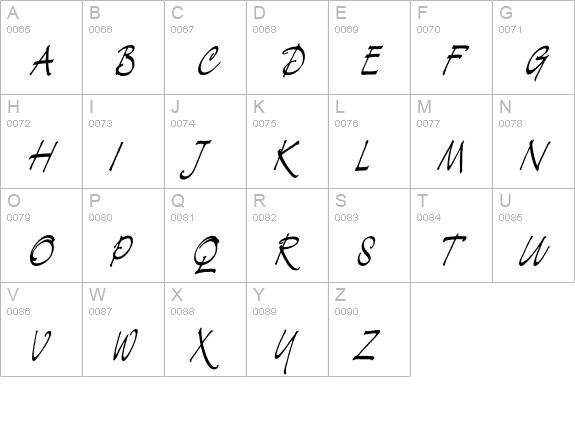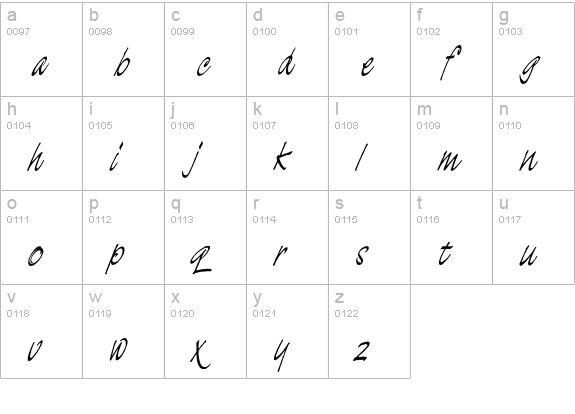
Lucifer Font Details
Lucifer font is a stylish and modern typeface that exudes elegance and sophistication. With its sleek lines and sharp edges, this font is perfect for adding a touch of sophistication to any design project. Whether you are creating a logo, poster, or website, Lucifer font will make your text stand out with its distinctive look. The best part about Lucifer font is that it is completely free to download. You can easily access this stunning typeface at FontsMarket.com, where you can explore its full range of characters and styles. Whether you are a graphic designer, artist, or hobbyist, Lucifer font is a versatile choice that will elevate your designs to the next level. Don't miss out on this fantastic opportunity to enhance your creative projects with the captivating Lucifer font, available for free at FontsMarket.com.